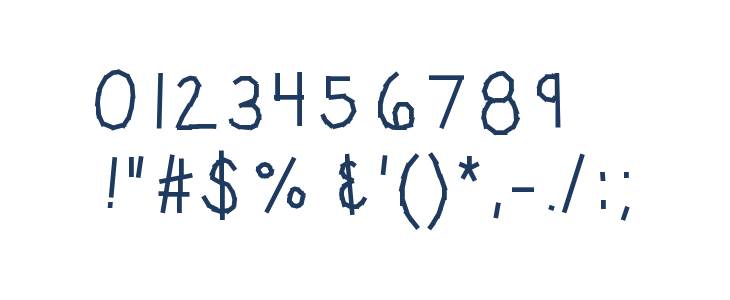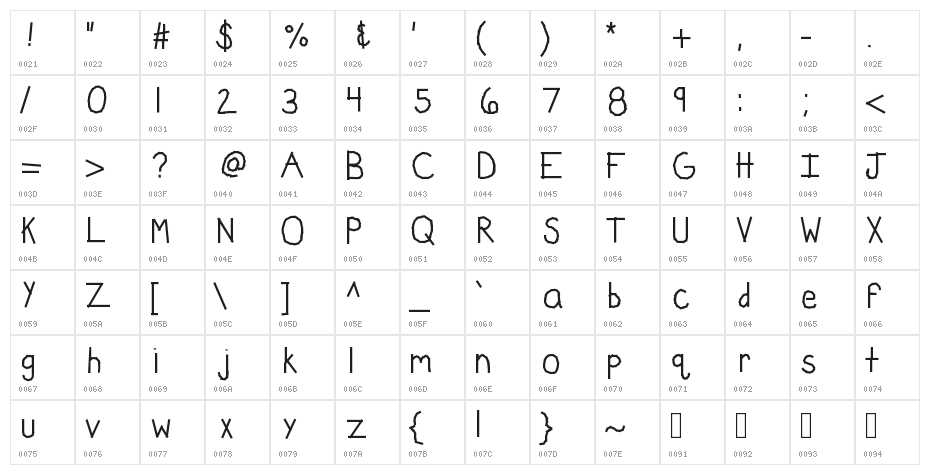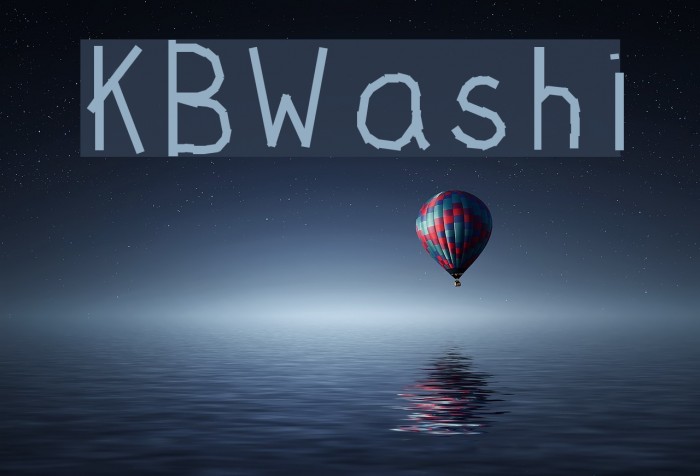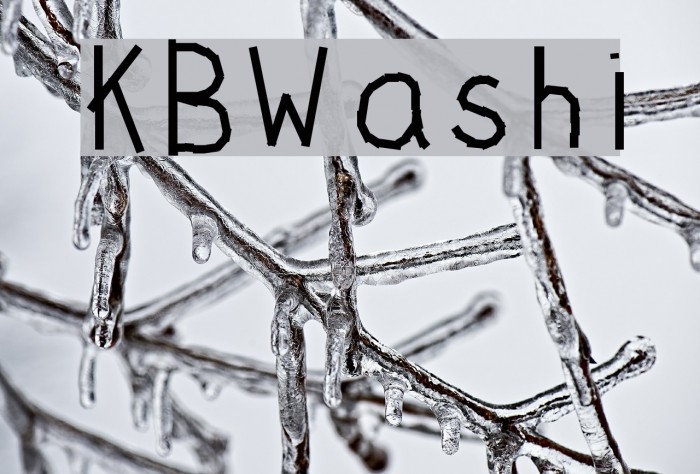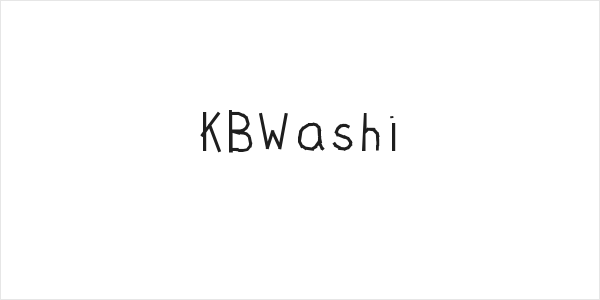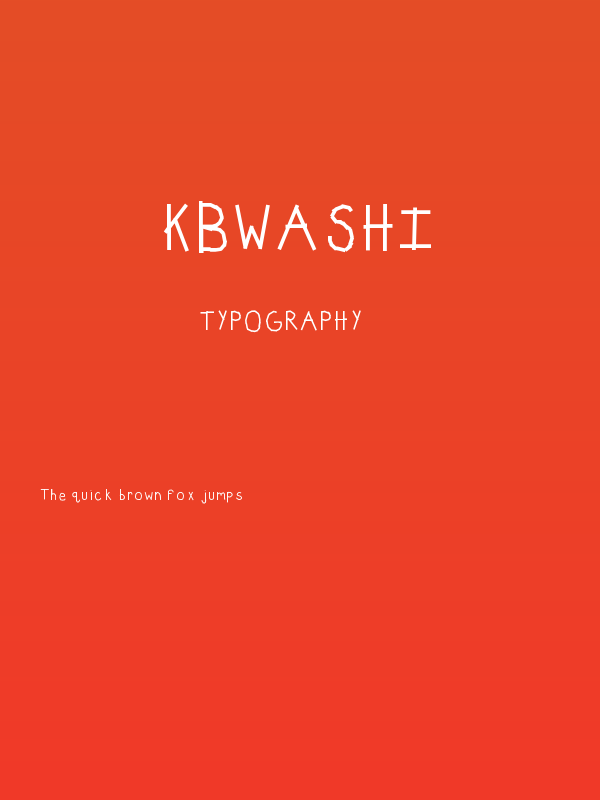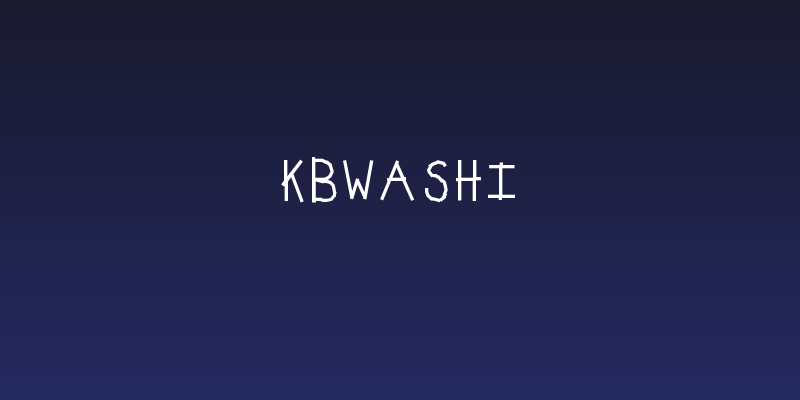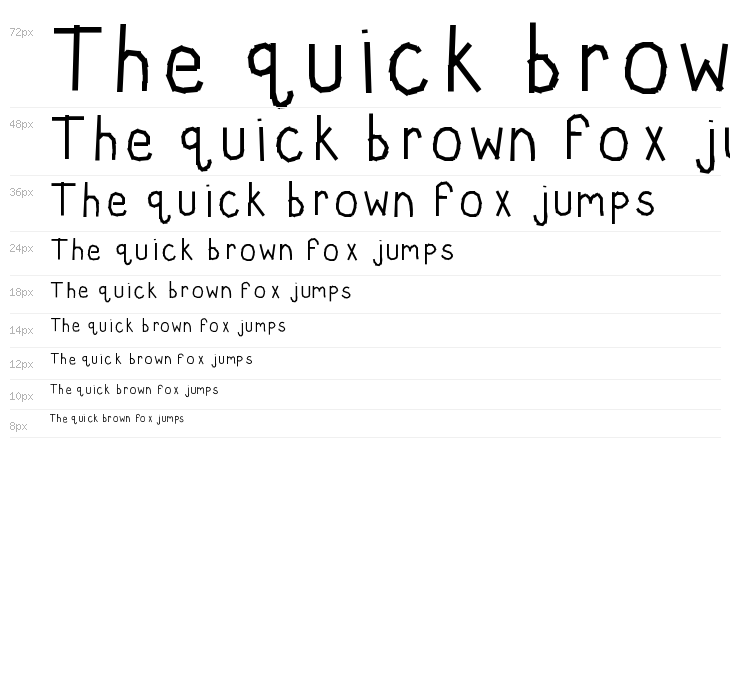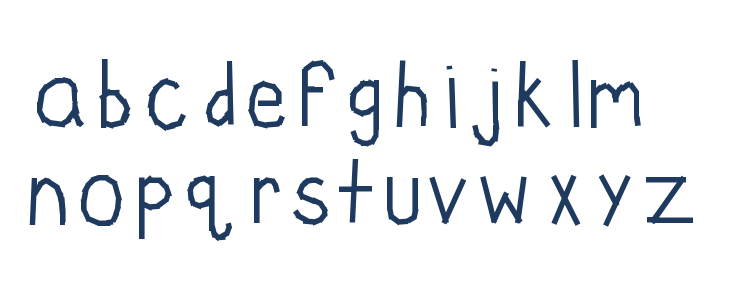
KBWashi Font
KBWashi Description
This font features a unique, hand-drawn aesthetic with uneven lines and a slightly rough texture, reminiscent of traditional ink on paper. The characters are distinct and quirky, with a playful yet sophisticated feel. The uppercase letters are bold and prominent, while the lowercase letters maintain a consistent style with a slightly smaller size. Numbers and special characters follow the same design principles, ensuring a cohesive look across all text. The font's irregularities add charm and character, making it suitable for creative projects that require a personal touch.
| Use Case | Logos, Posters, Artistic projects |
| Proposed Projects | Ideal for greeting cards, artistic posters, children's books, and creative branding. |